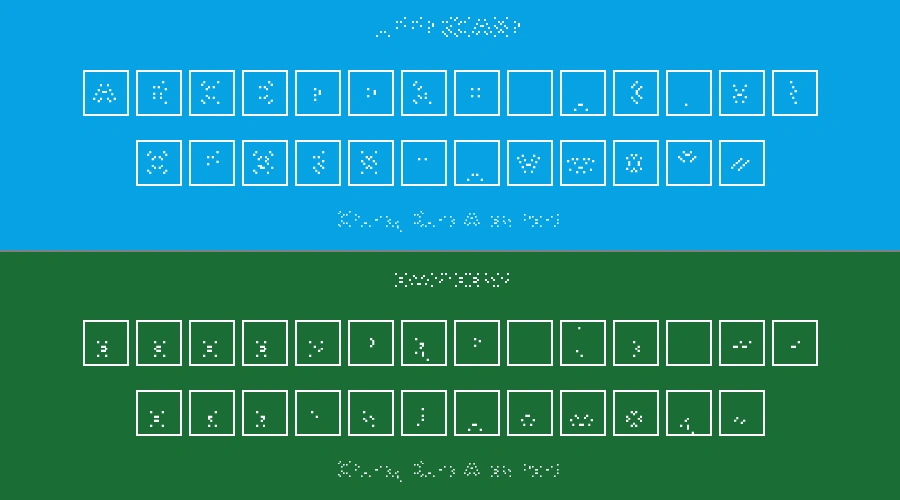
About Chunky Dunk Alias Font
Designed with precision, Chunky Dunk Alias Font merges distinctive terminals with uniqueness in every character. This versatility makes it particularly effective for advertising campaigns, where clarity and market relevance directly impact communication quality. Each letterform demonstrates meticulous craftsmanship.
Technical excellence shines through elements like geometric serifs and small caps, enhancing typographic versatility. In traditional announcements settings, Chunky Dunk Alias Font proves its worth through superior data presentation. The thoughtful execution of aperture size and technical tradition ensures professional results.